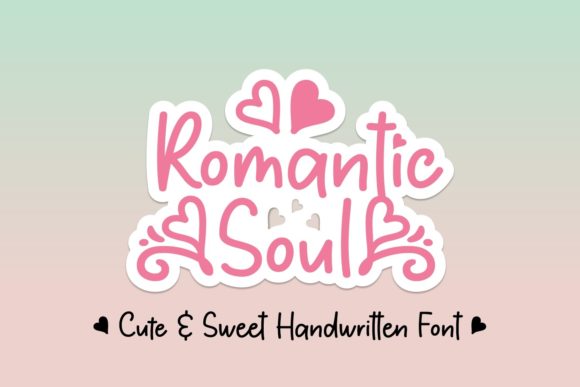
Leap into the realm of enchantment with Romantic Soul Font, where elegance and sweetness intertwine to create a script like no other. Embrace the allure of this font family, meticulously crafted to awaken your designs with a romantic spark. Immerse yourself in a world of endless creative possibilities, where every letter dances with grace and charm.
Tailored for your captivating designs, Romantic Soul Font is the perfect companion for heartfelt cards, enchanting invitations, alluring branding, and any project craving a touch of romance. Let your words bloom with elegance as they find their home within this script's graceful curves and charming ligatures.
Step into a world of timeless beauty, where your designs transcend the ordinary and take on a life of their own. With Romantic Soul Font, your words will captivate hearts and leave a lasting impression. It's the perfect choice for creating heartfelt wedding invitations that radiate love and joy, or for adding a touch of enchantment to your personal branding.
Designed with passion by Jasm (7NTypes), Romantic Soul Font is a testament to the power of creativity and imagination. Experience the joy of bringing your design visions to life with a font that speaks to the heart.
With Romantic Soul Font, you'll discover:
* An elegant script that adds a touch of romance to any design
* Perfectly suited for cards, invitations, branding, and more
* Graceful curves and charming ligatures that elevate your words
* Designed with passion by Jasm (7NTypes), a renowned font designer
Let Romantic Soul Font be your creative muse, guiding you to design masterpieces that leave a lasting impression. Embrace the beauty of this font and watch your designs blossom into works of art.